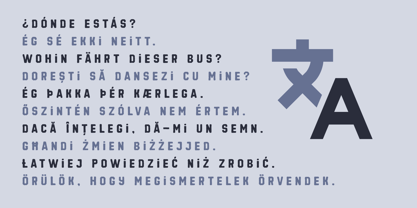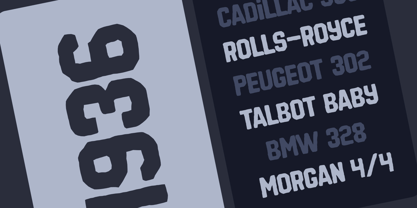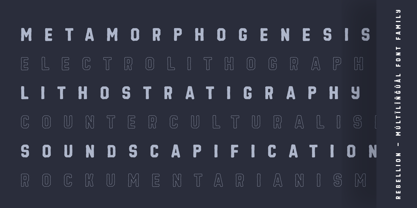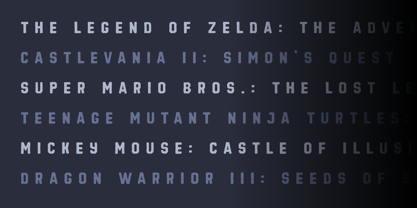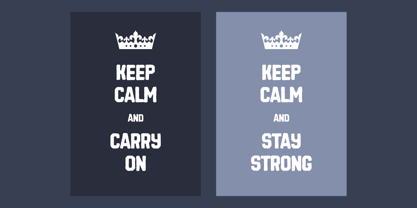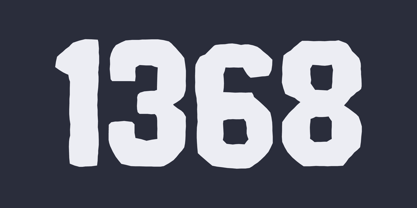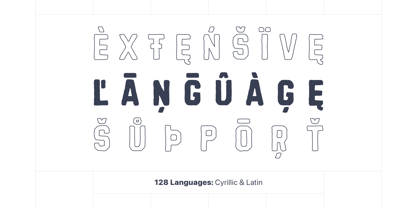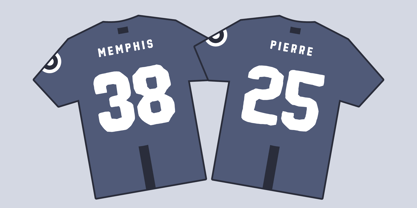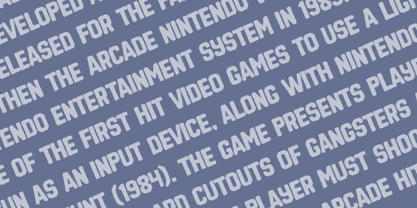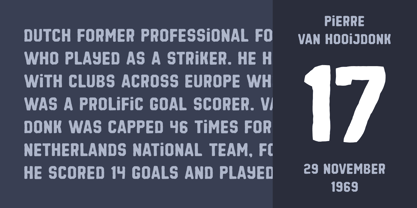
Creedo
by AlperCakici
The Creedo Font Family was designed by Alper Çakıcı and published by AlperCakici. Creedo contains 46 styles and family package options. More about this family
Creedo Typeface Family Creedo is a professional display typeface family inspired by raw stone textures and natural surface irregularities. Designed with a strong structural foundation and controlled distress detailing, it balances expressive character with functional clarity. With support for 128 languages (Latin & Cyrillic), Creedo is built for international branding and large-scale visual systems. The family includes more than 40 carefully developed styles, offering a wide range of visual tones — from clean Regular and Rounded forms to Angular, Brush, Eroded, Rough, Outline, Pencil, and Noise variations, each with matching italics. Creedo is engineered for high-impact typography across branding, packaging, editorial headlines, posters, apparel graphics, gaming titles, and digital campaigns. Its textured aesthetic adds depth and presence without compromising legibility. Key Features Extensive family with 40+ styles and italics Latin & Cyrillic language support (128 languages) Structured letterforms with refined rough detailing Versatile range: Angular, Rounded, Circular, Brush, Eroded, Outline, Rough, Pencil & more Optimized for display use in print and digital environments Creedo offers creative flexibility within a cohesive, professionally built system — ideal for designers seeking texture, strength, and adaptability in one comprehensive type family.
Designers: Alper Çakıcı
Foundry: AlperCakici